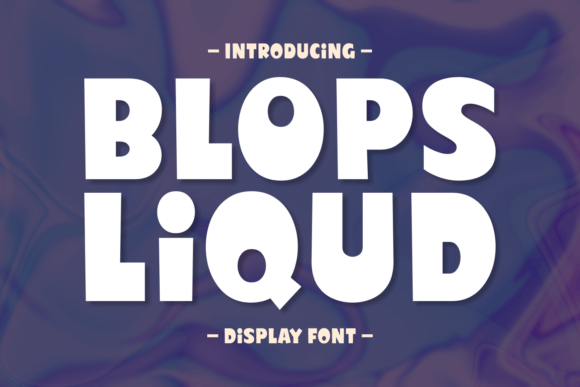
Introduction to Blops Liqud Font
Blops Liqud is a bold and chunky display font characterized by its playful and chubby appearance, enhanced with a liquid effect.
This font exudes a sense of fun and vibrancy, making it perfect for projects that require a bold and eye-catching typographic statement Despite its bold and chunky design, β€œBlops Liqud” is surprisingly versatile and adaptable to a variety of design contexts.
Key Features of Blops Liqud Font
Why Choose Blops Liqud Font?